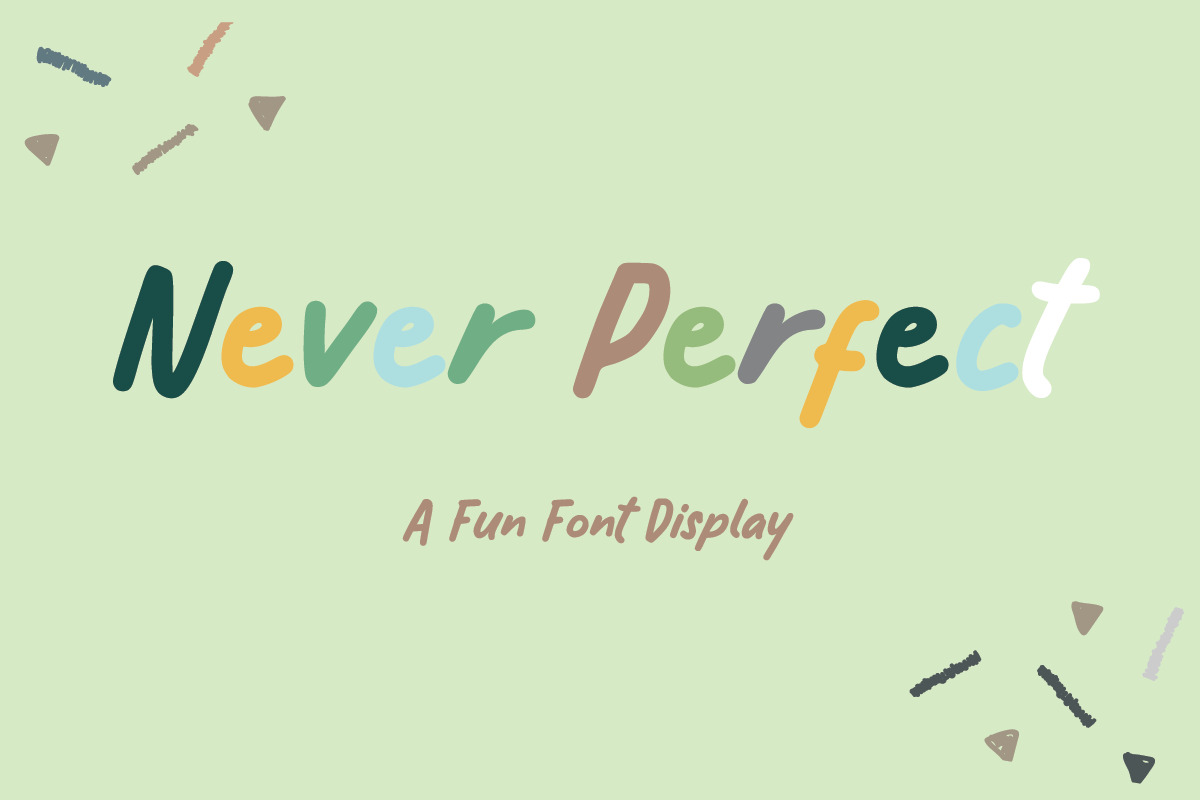
Never Perfect
Never Perfect is a Fun Handwritten Font that's perfect for Headline, Thumbnail or Merchandise. This font specially crafted for your design projects such as banner, poster, flyer, website design, product packaging, merchandise, pillow print and so many more with easy to use but standing out results are so amazing.
Enjoy to Design any your needs with standing out, unique, and authentic feels.